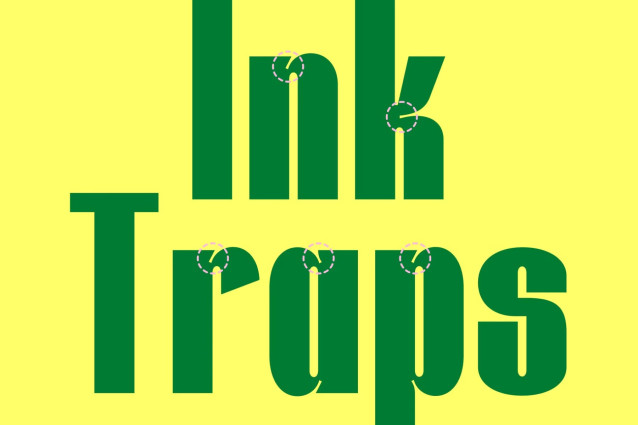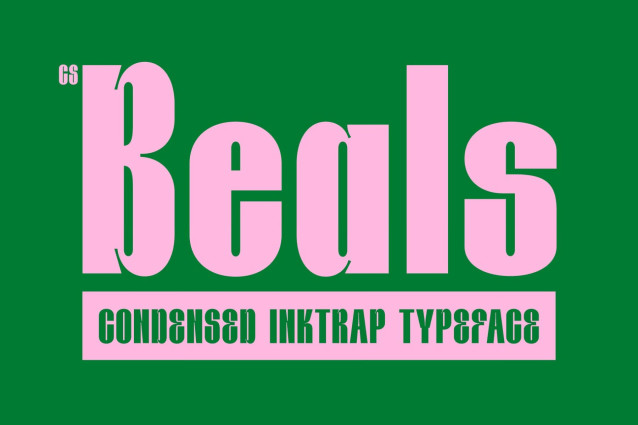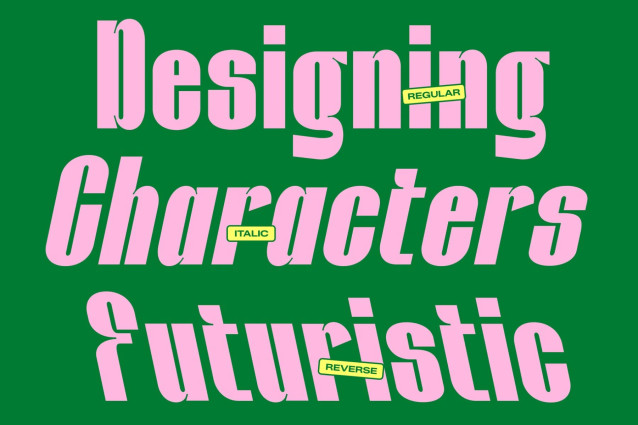
CS Beals – Inktrap Font
CS Beals – Bold Condensed Sans Serif Font: Where Strong Impact Meets Playful Inktrap Character
Powerful Condensed Forms with Maximum Presence
This is a bold condensed sans serif font designed to deliver strong visual impact through its tall, compact letterforms. Its condensed structure maximizes space efficiency while maintaining a commanding presence, making every word feel bold, confident, and impossible to overlook.
Playful Inktrap Details with Distinctive Personality
What sets this font apart is its playful inktrap detailing, which introduces unique cuts and subtle design accents throughout the letterforms. These details add visual interest, character, and a contemporary edge while enhancing clarity and balance. The result is a typeface that feels both professional and expressive, combining structural precision with creative charm.